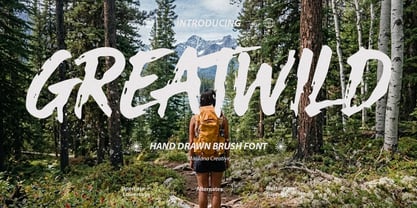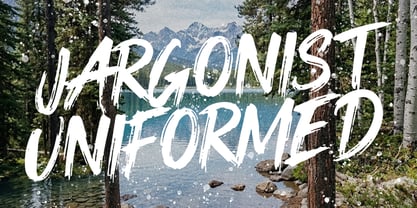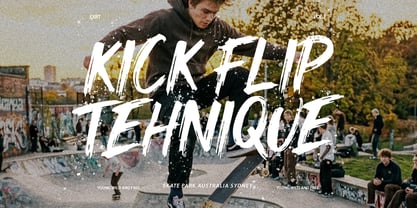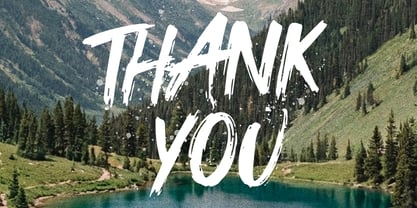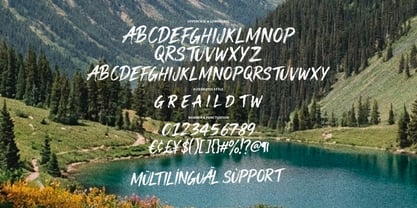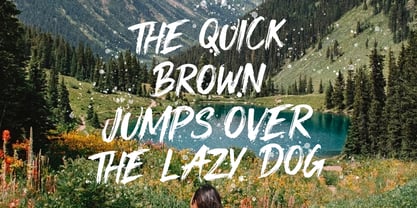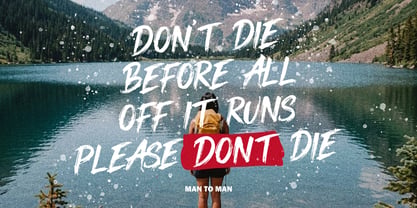
MC Greatwild
by Maulana Creative
The MC Greatwild Font Family was designed by Gilang Maulana and published by Maulana Creative. MC Greatwild contains 1 styles. More about this family
Greatwild is a raw, energetic hand-drawn brush font designed to give your creative projects a powerful, authentic edge. This font boasts rough-textured brush strokes and a dynamic, forward motion, perfect for branding that needs a strong, natural presence. Whether you're designing posters, music covers, website headers, or merchandise that requires a touch of the wild, Greatwild delivers an impactful aesthetic. It features uppercase and lowercase characters, standard ligatures, and multilingual support.
Designers: Gilang Maulana
Foundry: Maulana Creative